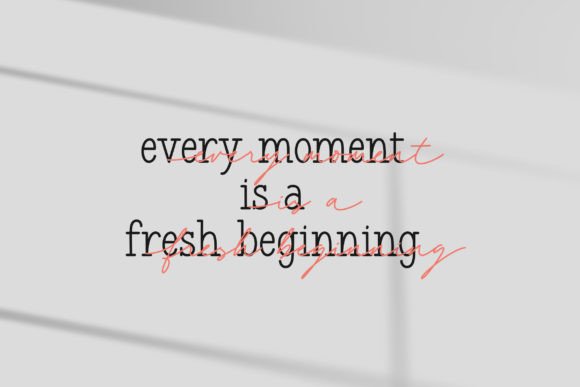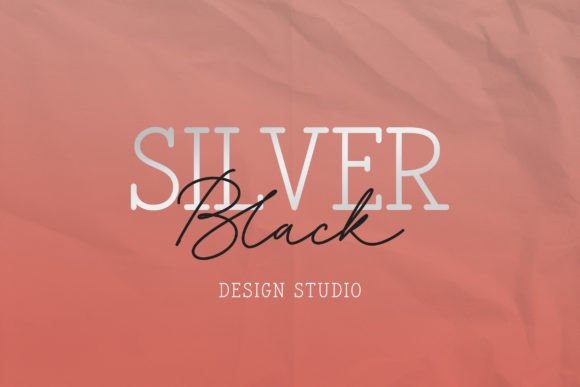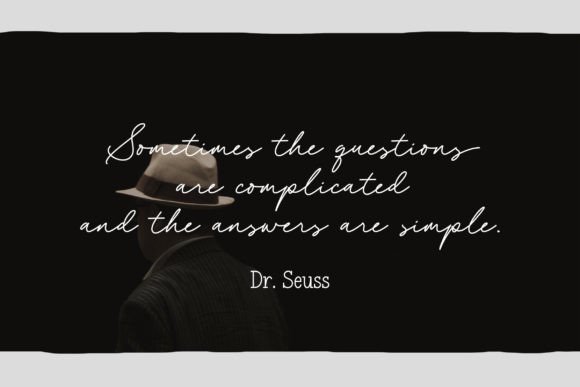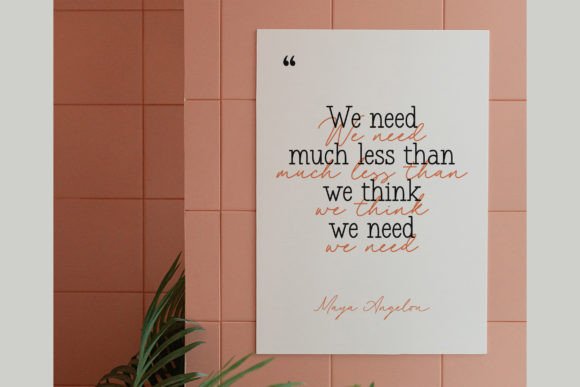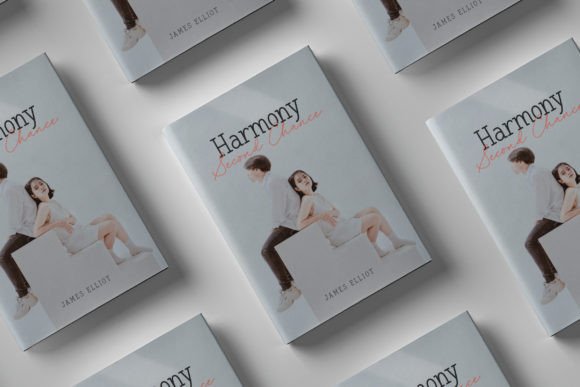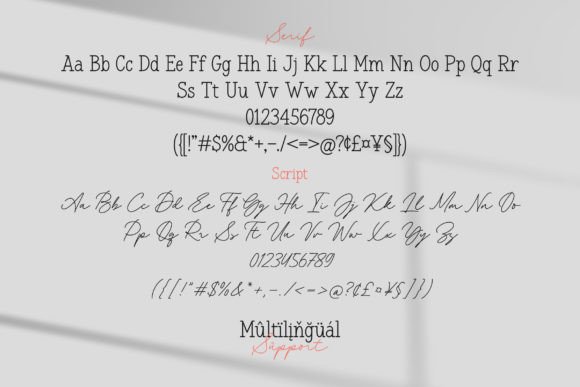
Introducing Classy Melody Font: Elevate Your Designs with Elegance
Are you searching for a font that exudes sophistication and modernity? Look no further than Classy Melody, a stunning duo mix of monoline script and slab serif fonts. This versatile font combination is perfect for designers and crafters seeking to add a touch of elegance to their projects. In this article, we’ll explore the features and benefits of Classy Melody, and how it can elevate your designs to the next level.
The Perfect Blend: Monoline Script and Slab Serif
Classy Melody is a thoughtfully crafted font that combines the fluidity of monoline script with the sturdy elegance of slab serif. This unique blend creates a visually appealing contrast that adds depth and interest to any design. The monoline script component offers a smooth, cursive feel, while the slab serif adds a touch of sophistication and stability. Together, they create a modern and refined aesthetic that’s perfect for a wide range of applications.
Classy Melody is an incredibly versatile font, suitable for various design projects, including:
- Logos & Branding: Create a lasting impression with a custom logo that showcases your brand’s personality.
- Invitations: Design beautiful wedding invitations, birthday party invites, or any other special occasion.
- Stationery: Elevate your stationery game with elegant letterheads, business cards, and envelopes.
- Wedding Designs: Make your wedding designs truly unforgettable with Classy Melody’s romantic and sophisticated feel.
- Signature: Add a personal touch to your email signature or social media profiles.
- Product Designs: Create eye-catching labels, packaging, and product designs that stand out.
- Photography: Use Classy Melody to add a touch of elegance to your photography projects, such as photo captions or album designs.
Why Choose Classy Melody?
With so many fonts available, why choose Classy Melody? Here are just a few reasons:
- Unique and Versatile: Classy Melody offers a distinctive font combination that’s perfect for a wide range of design projects.
- Elegant and Sophisticated: This font exudes refinement and poise, making it ideal for designs that require a touch of luxury.
- High-Quality Design: This font is carefully crafted to ensure high-quality design and excellent readability.